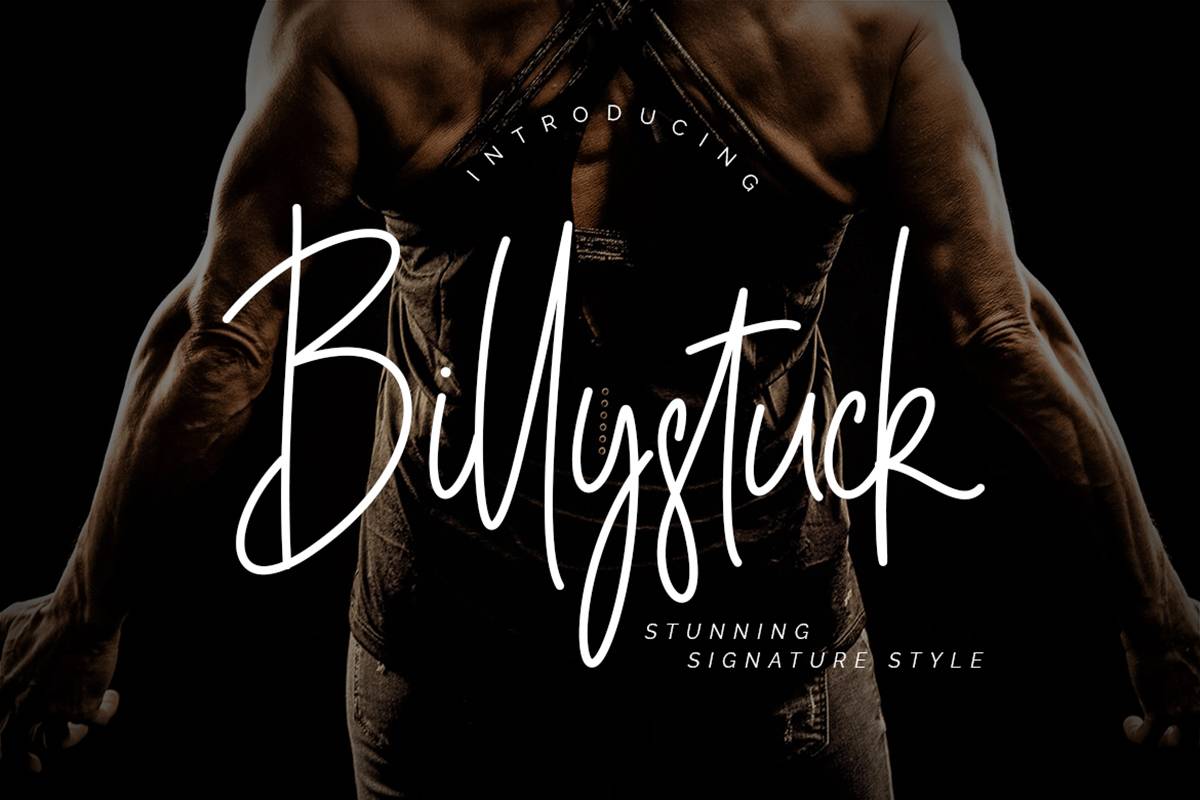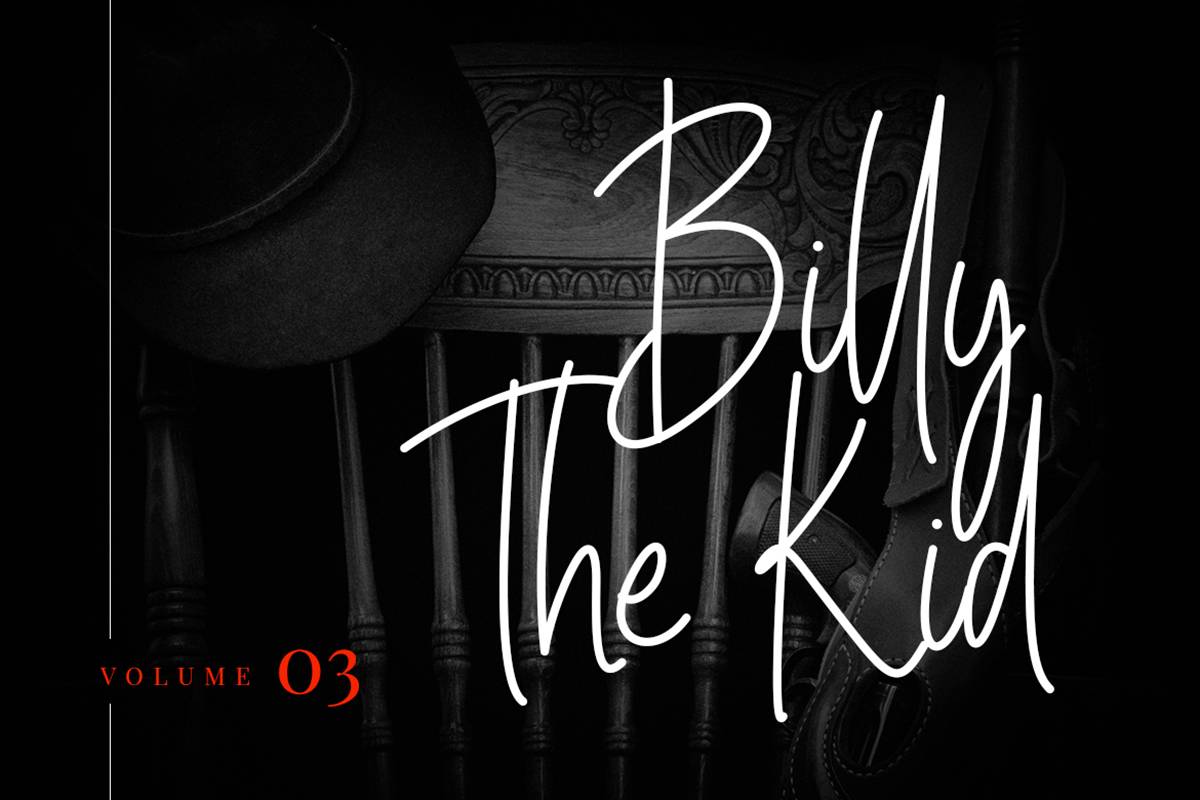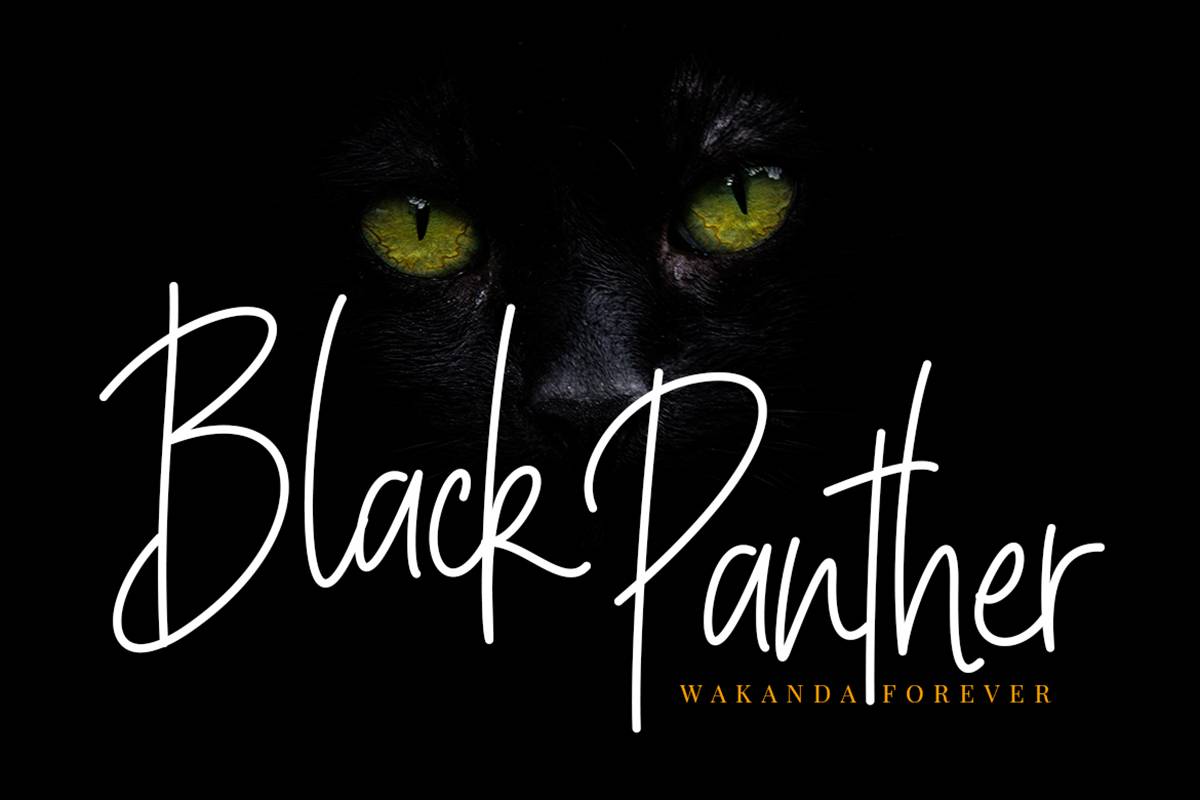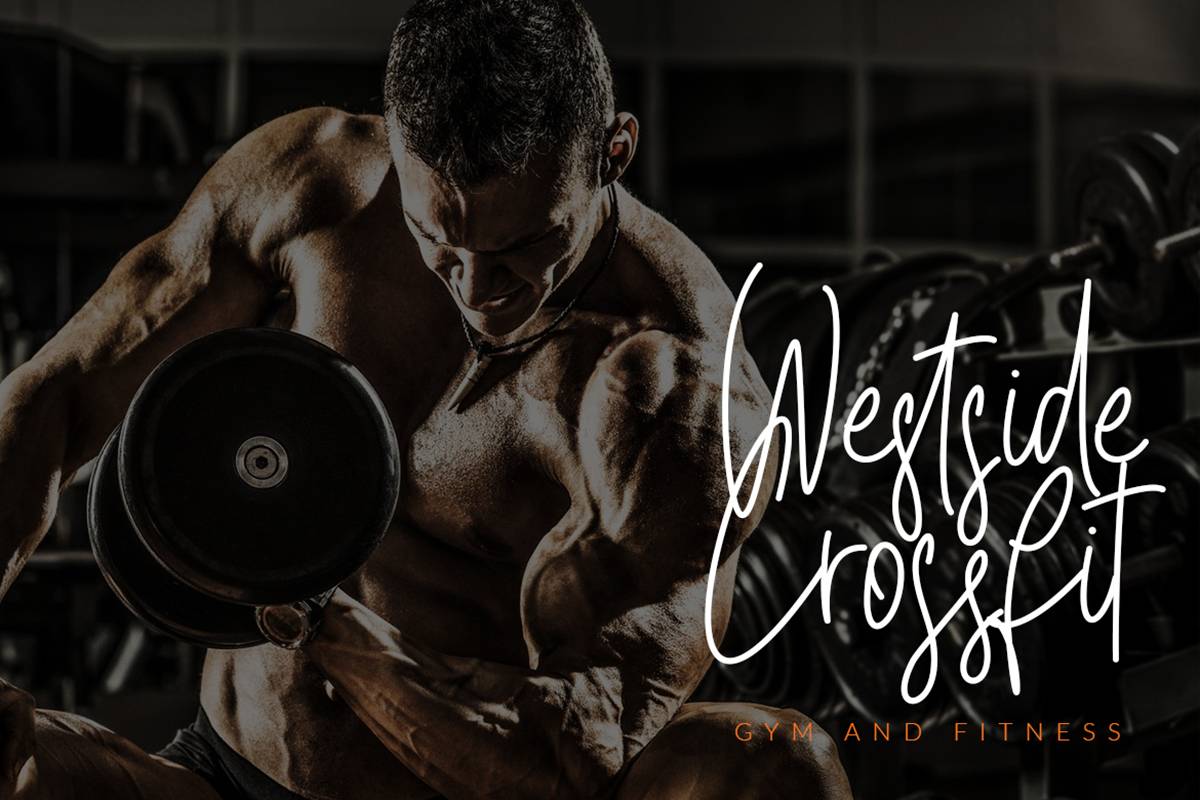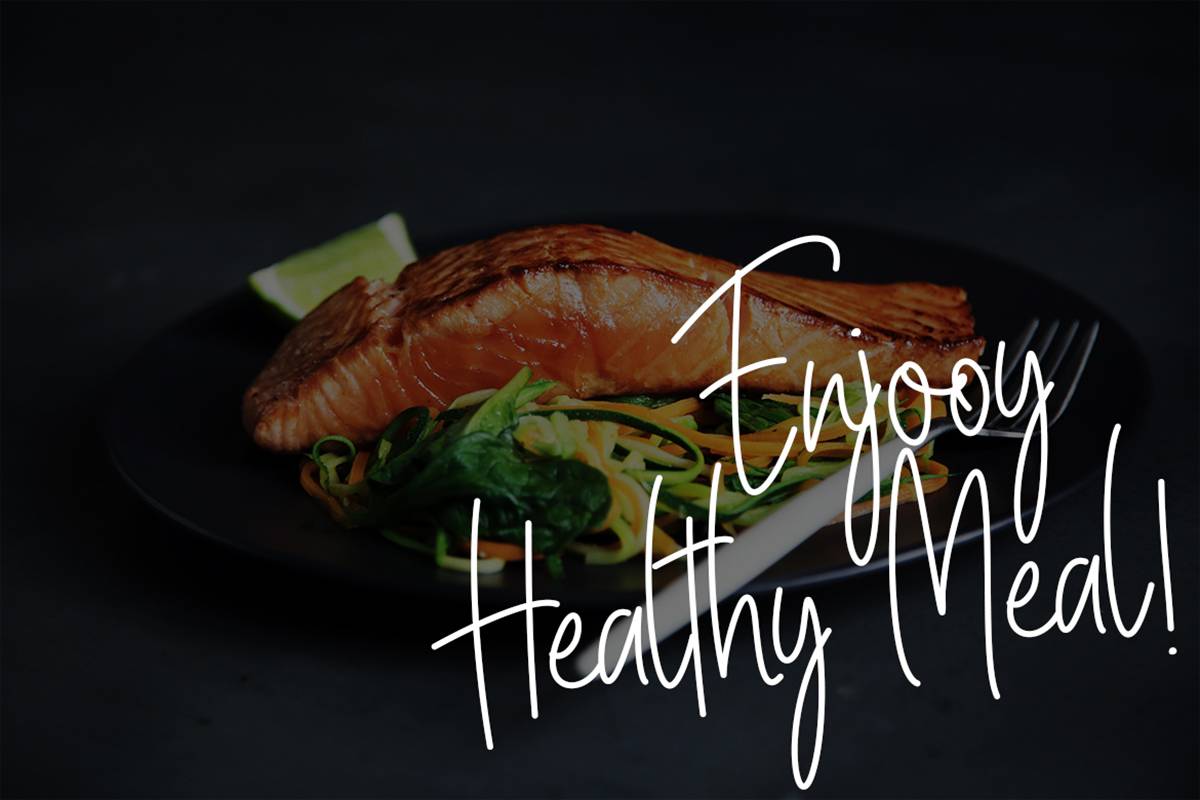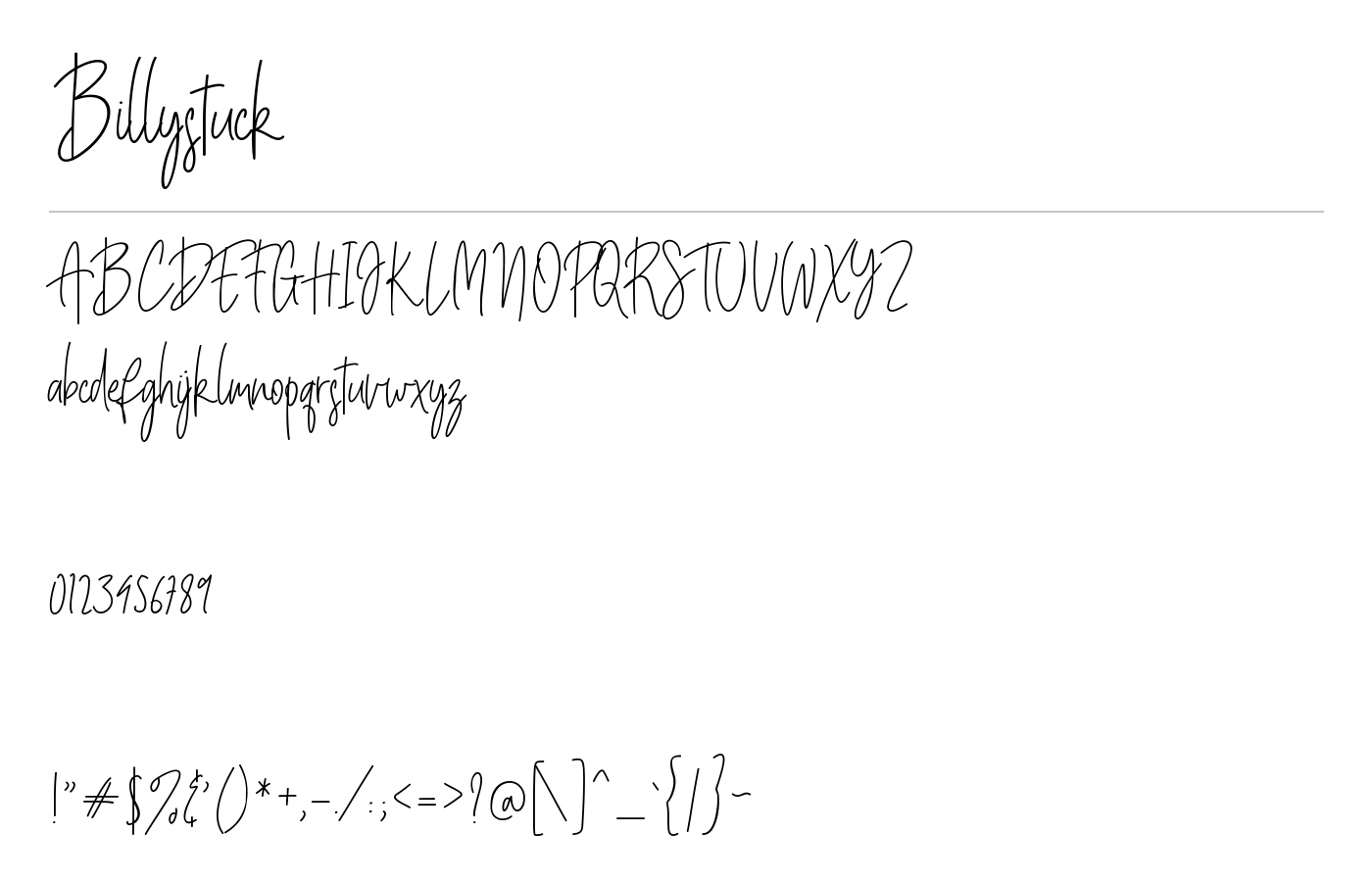
Billystuck is a delicate, handwritten script font characterized by tall, slender letterforms with a casual yet elegant style. Its light, airy strokes and uneven lines give it a natural, personal touch, making it perfect for creative projects, invitations, and branding that seek a friendly and approachable feel. This font works best in headlines or decorative text where a unique, intimate look is desired.
Billystuck Font